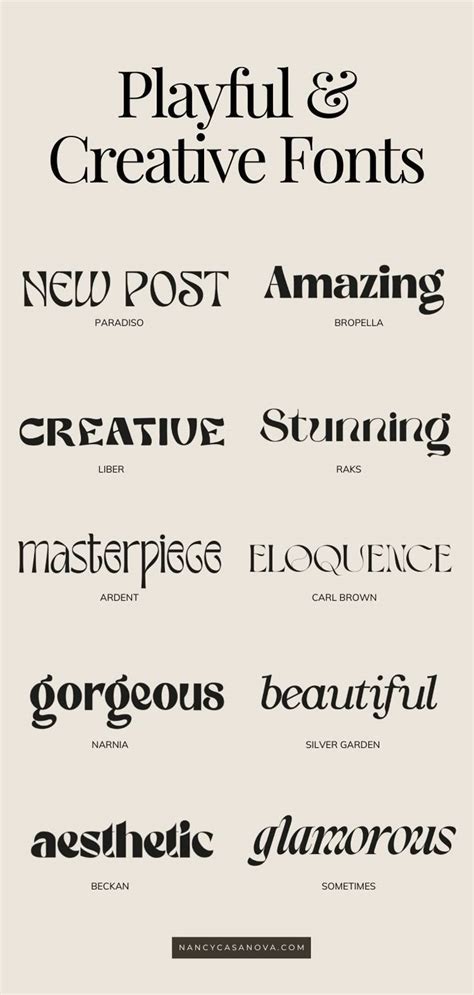
Unlock the Secrets of Extra Fonts: How to Add a Unique Touch to Your Projects!
Using the right fonts can make a huge difference to the visual impact of your project. It can be the difference between a project that looks amateurish and one that looks professional and polished. But with so many fonts available, it can be difficult to find the perfect one. That's why unlocking the secrets of extra fonts can help you add a unique touch to your projects.Where to Find Extra Fonts
The internet is a great resource for finding extra fonts. There are many websites that offer free and paid fonts, allowing you to explore a wide range of options and find the perfect font for your project. Some sites even offer exclusive fonts that you won't find anywhere else, so you can add an extra layer of uniqueness to your work.The Benefits of Extra Fonts
Using extra fonts can help you stand out from the crowd and create a unique look for your project. It can also help you create a more coherent and visually appealing design. For example, if you are creating a poster, you can use extra fonts to add a sense of sophistication and elegance to the design.How to Use Extra Fonts
Once you have chosen the perfect extra font, the next step is to incorporate it into your project. Consider the font size, weight, and spacing, as these can all have a big impact on the overall look and feel of the design. You should also think about how the font will work with the other elements of your project, such as the colors and images.Tips for Choosing Extra Fonts
When choosing extra fonts, it is important to consider the overall style and tone of your project. Think about what message you want to convey and pick a font that will help you do that. Also, make sure the font is easy to read and that the letters are distinct from each other, as this will help create a better visual experience for your viewers.Examples of Extra Fonts
For example, if you are creating a poster for a modern event, you might want to use an extra font like Paradise or Amelia. These fonts are sleek and modern, and they will add a touch of sophistication to your design. Alternatively, if you are creating a poster for a vintage event, you might want to use an extra font like Hercules or Vivaldi. These fonts have a more classic feel, and they will help you create a timeless look.Benefits of Using Extra Fonts
Using extra fonts can help you create a unique and professional-looking design that stands out from the crowd. It can also help you create a more coherent and visually appealing design, which will help you make a great impression on your viewers.Conclusion
Unlocking the secrets of extra fonts can help you add a unique touch to your projects. By exploring the wide range of fonts available and carefully considering how to use them in your project, you can create a design that looks professional and polished. So why not unlock the secrets of extra fonts and add a unique touch to your projects today? Creating designs with a unique touch doesn't have to be difficult. Unlocking the secrets of extra fonts can help you add a unique touch to your projects and make a great impression on your viewers. So why not explore the wide range of fonts available and find the perfect one for your project today?Source: CHANNET YOUTUBE ProgrammingKnowledge2